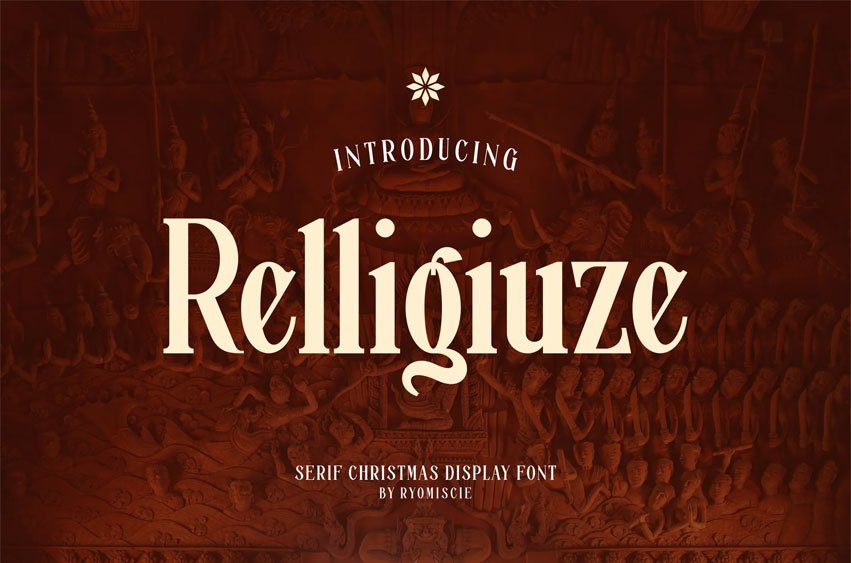
Relligiuze Font Modern Font is a bold and authentic display font. The font is suitable for any branding project, like logos, esport, and many more.
outstanding in a wide range of contexts.